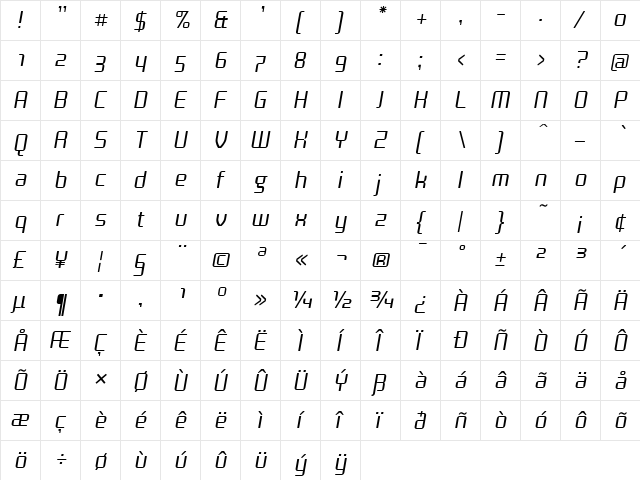
Titan Italic
Design Context for Titan Typeface
Titan is a composed and adaptable typeface that performs quietly and consistently across a wide range of design contexts. The slanted form adds forward momentum and visual energy.